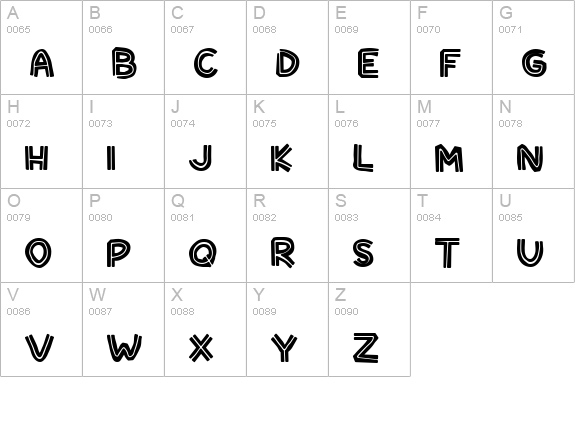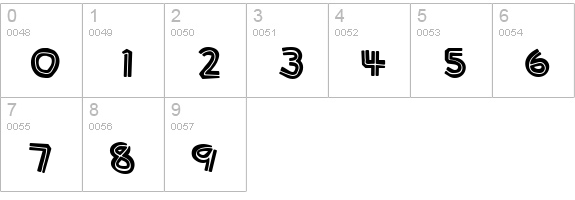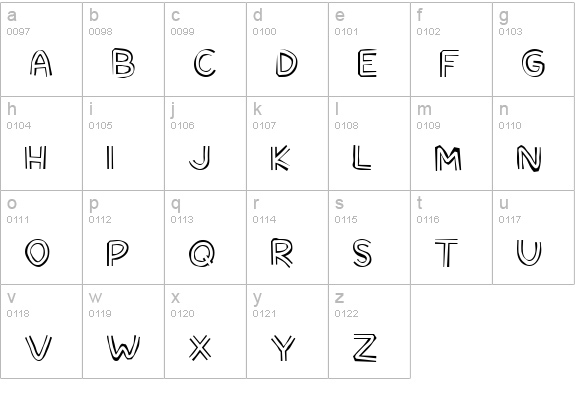
SuperTiki Font Details
Introducing SuperTiki, a captivating font that effortlessly combines modern and tribal elements to create a truly unique typographic experience. With its bold and dynamic letterforms, SuperTiki stands out in any design project, adding a touch of adventure and excitement. Designed with versatility in mind, SuperTiki is perfect for a wide range of applications, from branding and packaging to posters and social media graphics. Its clean lines and intricate details make it equally suitable for both digital and print mediums. But what sets SuperTiki apart is not just its stunning aesthetics. It is also a font that values accessibility and inclusivity. That's why we are thrilled to announce that SuperTiki is available as a free download at FontsMarket.com, making it accessible to designers and enthusiasts alike. This means that you no longer have to worry about breaking the bank to add a touch of exoticism to your designs. SuperTiki brings the spirit of adventure to your fingertips, without putting a dent in your budget. So whether you're working on a tropical-themed project, creating a logo for an outdoor brand, or simply looking to add some flair to your designs, SuperTiki is the perfect choice. Download it for free at FontsMarket.com and let your creativity run wild with this captivating and versatile font.